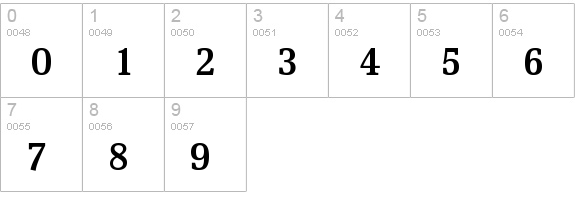
Scherzo Std Demi Font Details
Scherzo Std Demi is a sub-bold, structured variant in the Scherzo typeface family \xE2\x80\x94 well suited to sub-headlines and emphasised passages.
Scherzo Std Demi font is a captivating and eye-catching typeface that effortlessly combines elegance with a touch of playfulness. Its bold and dynamic letterforms are perfect for adding a touch of excitement and flair to any design project. With its distinctive and confident strokes, Scherzo Std Demi font exudes a sense of energy and movement. Whether used for headlines, titles, or logos, this font commands attention and makes a statement. Its strong presence on the page or screen is sure to captivate and engage viewers. One of the most appealing aspects of Scherzo Std Demi font is its versatility. It is equally suited for both digital and print applications. Whether used for web design, branding, packaging, or editorial layouts, the font's clarity and legibility ensure that your message will be conveyed with impact and style. The free availability of Scherzo Std Demi font at FontsMarket.com makes it an even more attractive choice for designers and creatives. You can effortlessly download and start using this font in your projects, allowing you to save both time and money. Its accessibility ensures that everyone can benefit from its unique and striking aesthetic. In conclusion, Scherzo Std Demi font is a bold and captivating typeface that will elevate your designs to new heights. Its combination of elegance and playfulness, along with its versatility and free availability, make it a must-have for any designer's toolkit. Download Scherzo Std Demi font today at FontsMarket.com and let your creativity soar.